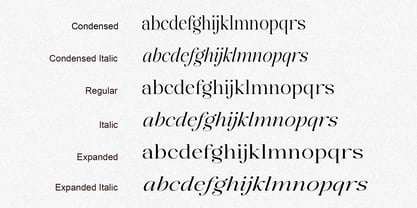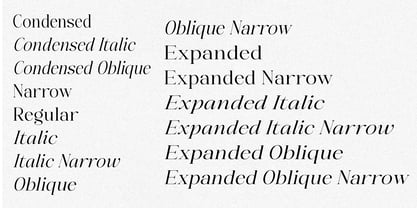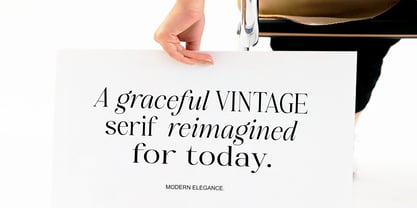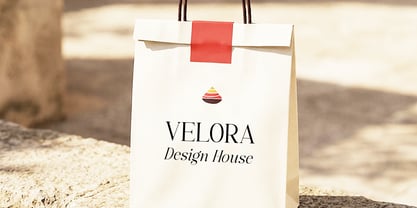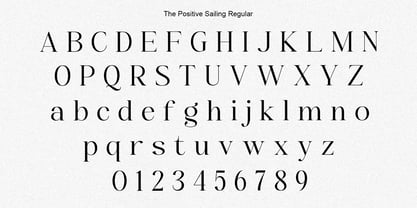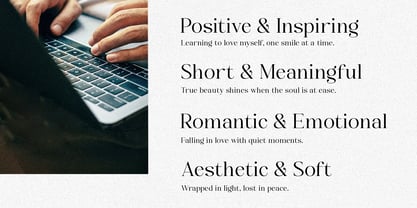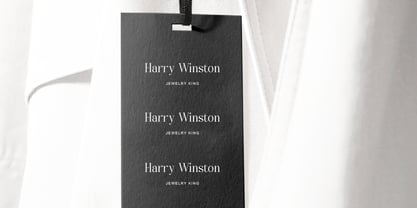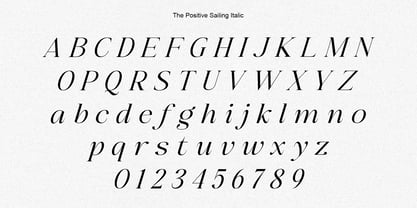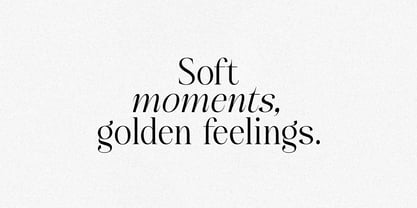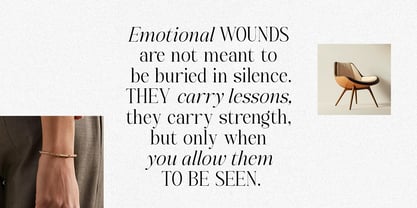
The Positive Sailing
by Positive Type
The The Positive Sailing Font Family was designed by Nur Hayati and published by Positive Type. The Positive Sailing contains 15 styles and family package options. More about this family
The Positive Sailing – Timeless Serif Typeface Family The Positive Sailing is a refined and elegant serif typeface family designed to bring a sense of sophistication, clarity, and timeless beauty to your creative projects. Inspired by classic editorial typography and modern design aesthetics, this font is perfect for designers who value both tradition and versatility. This typeface family includes 15 carefully crafted styles, offering a wide range of widths and styles—from Condensed to Expanded, and from Regular to Italic and Oblique. Each style is meticulously designed to ensure consistent quality, balanced proportions, and excellent readability across all applications. Whether you are working on branding, magazines, packaging, posters, websites, or luxury product designs, The Positive Sailing delivers a professional and premium typographic experience. Features 15 complete font styles Condensed, Narrow, Regular, and Expanded widths . - Italic and Oblique variations Elegant and timeless serif design Clean, balanced, and highly readable Suitable for print and digital use Works beautifully for editorial, branding, and display designs Perfect For Branding & Logo Design Editorial & Magazine Layouts Luxury Packaging Posters & Advertising Social Media Graphics Website Headers Invitations & Stationery The Positive Sailing is a versatile serif family that brings confidence, elegance, and professionalism to every design. Elevate your typography with The Positive Sailing — a timeless serif typeface for modern creatives.
Designers: Nur Hayati
Foundry: Positive Type